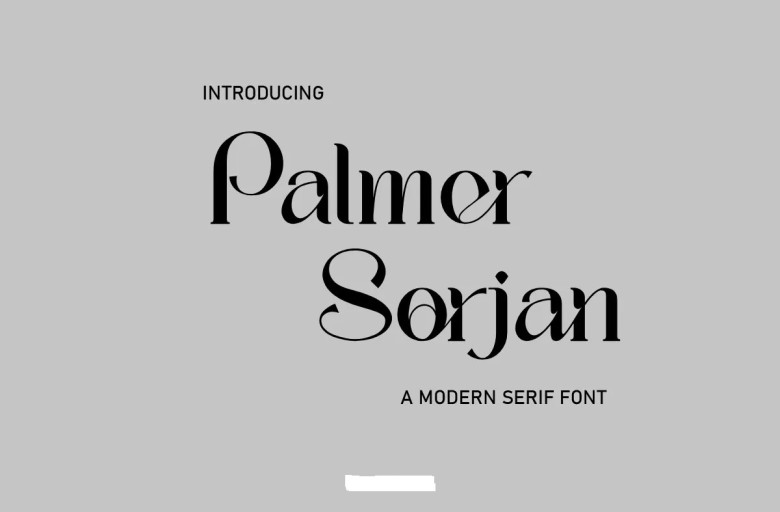
Palmer Sorjan Font
Palmer Sorjan font, a modern serif with exquisite ligatures also Unique alternatives are available for each character and multilingual support in good kerning. That is what gives your design a different feeling. Palmer Sorjan creates the perfect logo for an elegant luxury brand or classy editorial design is always fashionable in any woman’s magazine, glamour brands cosmetically designed by Olympic medalists own fashion promotion material and has been really well-received in modern advertising design with a touch of classic feeling.
It also works equally well as an invitation card for newer moms or fathers; providing the quotes that will be printed off one by one as art by friends, this is home decoration work at its best whether ever certain on purpose or not creating much more ways to get involved just like yet moving manuscript title page metamorphosis special events can be designed at will and many other occasions.
Palmer Sorjan Serif Font